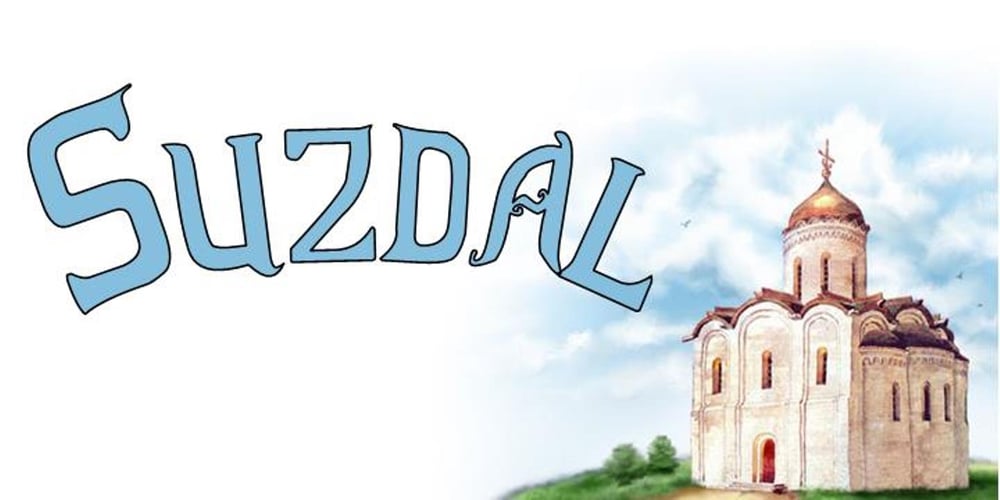
Suzdal Font Family was designed by Brett T. Johnson and published by Simeon out West. Suzdal contains 4 styles and family package options. Suzdal is a font based on a hand-lettered souvenir that I brought back from the Vladimir/Suzdal region in 2001. Suzdal includes a character set for Modern Greek, and most of the characters used in modern Cyrillic alphabets. The Vladimir/Suzdal region is northeast of Moscow and is part of Russia’s famed “Golden Ring” of medieval architecture. The city of Vladimir is situated north of the invasion route taken by the Mongols in the 13th century. After Kiev was destroyed, the ecclesiastical structure of Rus relocated itself to Vladimir until the fifteenth century when the Metropolitan of Kiev and all Rus was lured to Moscow. The advantage of being off the invasion route spared the area from the destruction that accompanied the Mongol invasion and has made the Vladimir/Suzdal region home to some of the finest examples of medieval Russian architecture. The Church of the Dormition of the Theotokos in the Moscow Kremlin is modeled after its more ancient namesake in Vladimir.